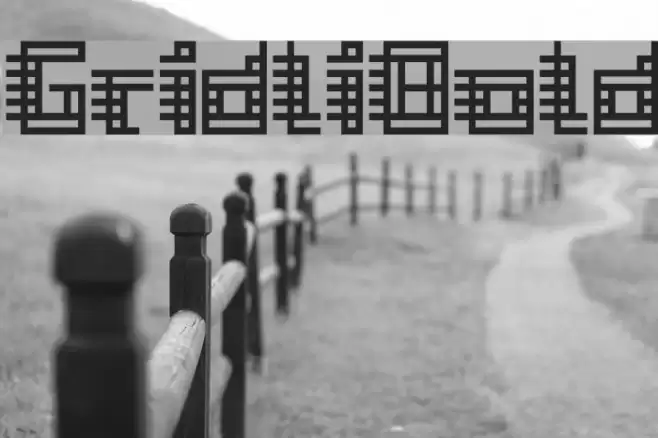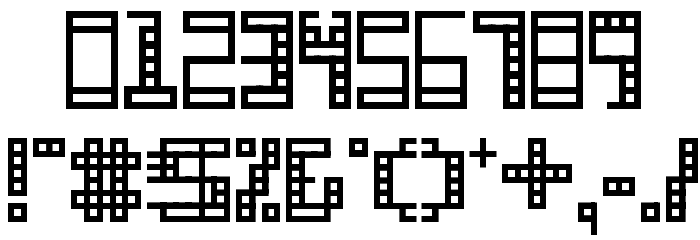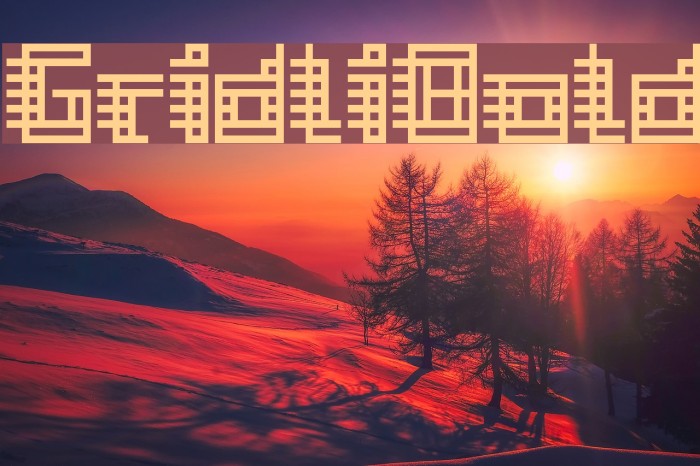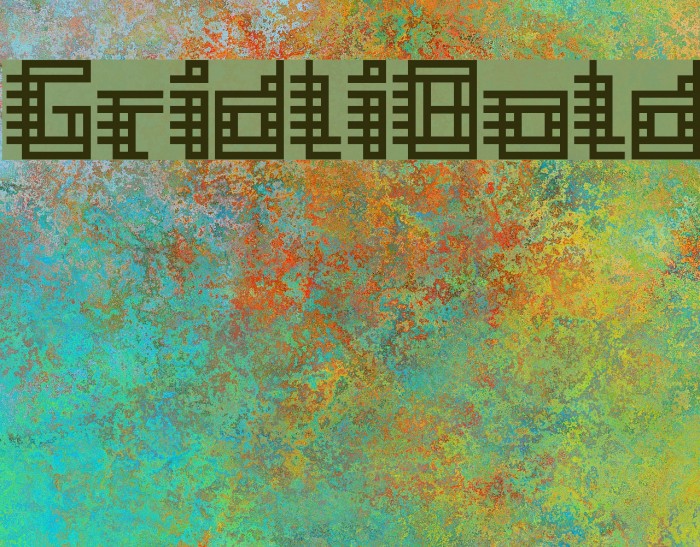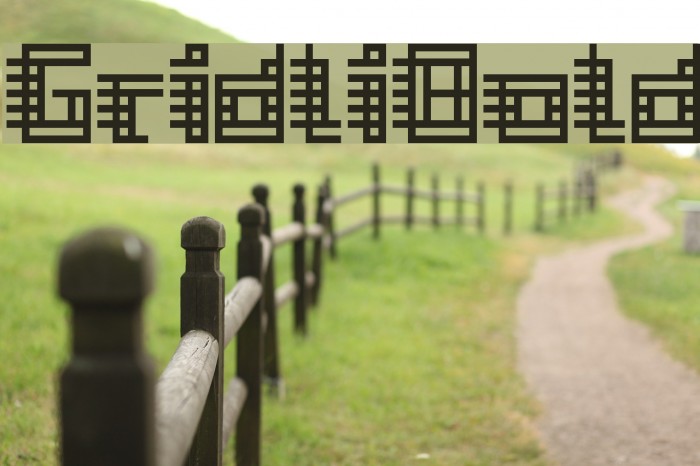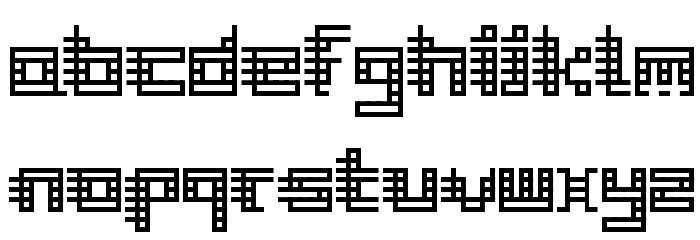
GridliBold Font
GridliBold Description
This font features a unique grid-like structure, where each character is composed of small square blocks arranged in a pixelated style. The design is highly geometric, with a consistent pattern that gives it a digital, retro appearance reminiscent of early computer graphics. Each letter and number is distinct, yet they all share the same blocky aesthetic, creating a cohesive look across the entire character set. The font includes both uppercase and lowercase letters, numbers, and a selection of special characters, all maintaining the same grid-based design. The boldness of the characters ensures high visibility and impact, making it suitable for attention-grabbing designs.
A bold, grid-based font with a pixelated, retro digital style from Uncategorized fonts.
- Proposed Projects: Ideal for digital art, retro-themed designs, video game graphics, and tech-related branding.
- Overall Style: Retro, Digital